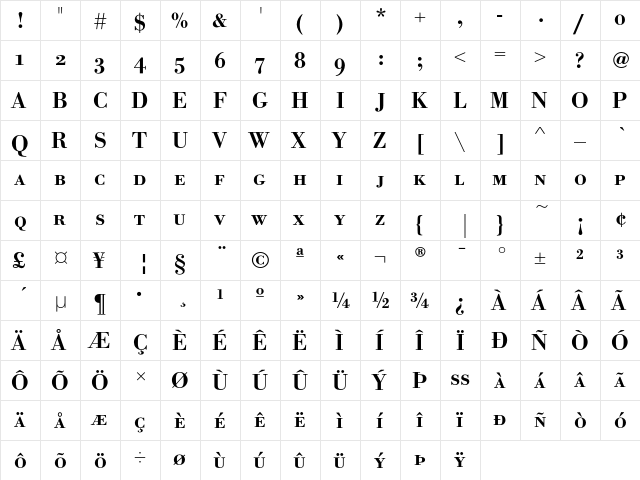
BodoniSCEF DemiBold Font Preview
BodoniSCEF DemiBold
BodoniSCEF DemiBold Font Details
Design Context for BodoniSCEF Typeface
BodoniSCEF offers clean, dependable letterforms without strong stylistic allegiance, making it a practical choice for designers who need flexibility. Its bold stroke weight gives it real presence on the page.